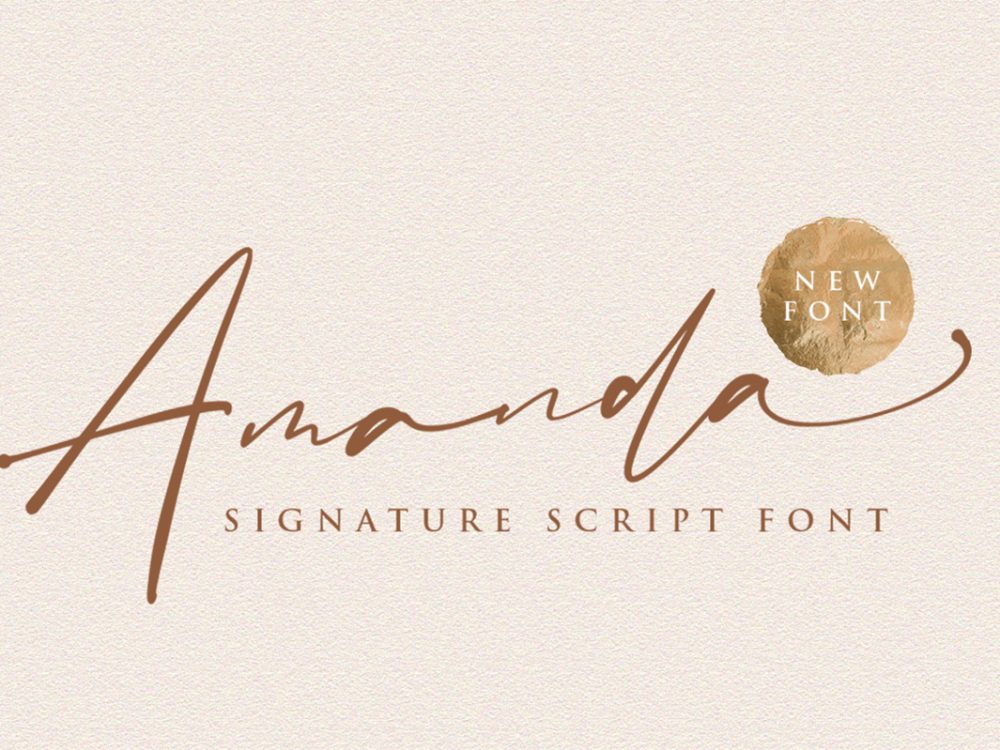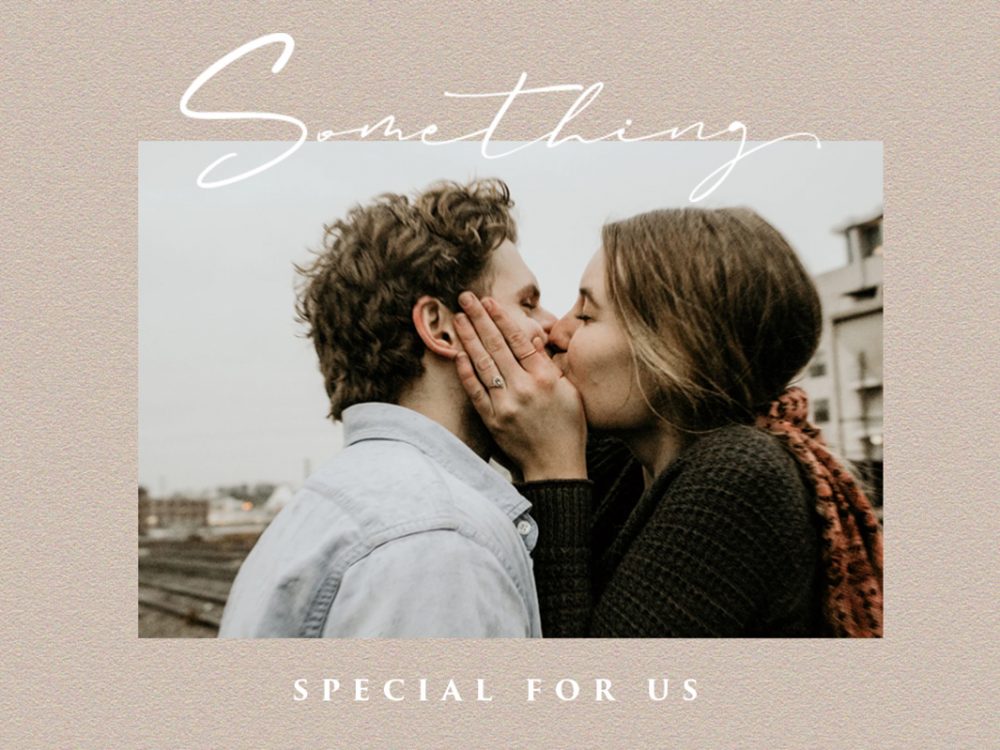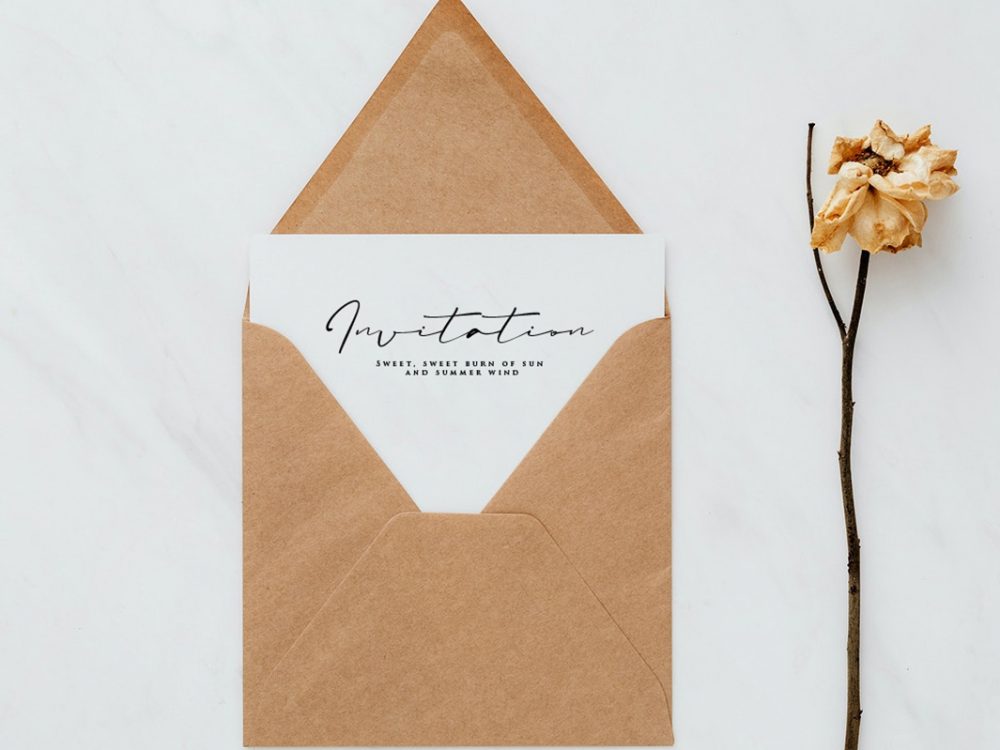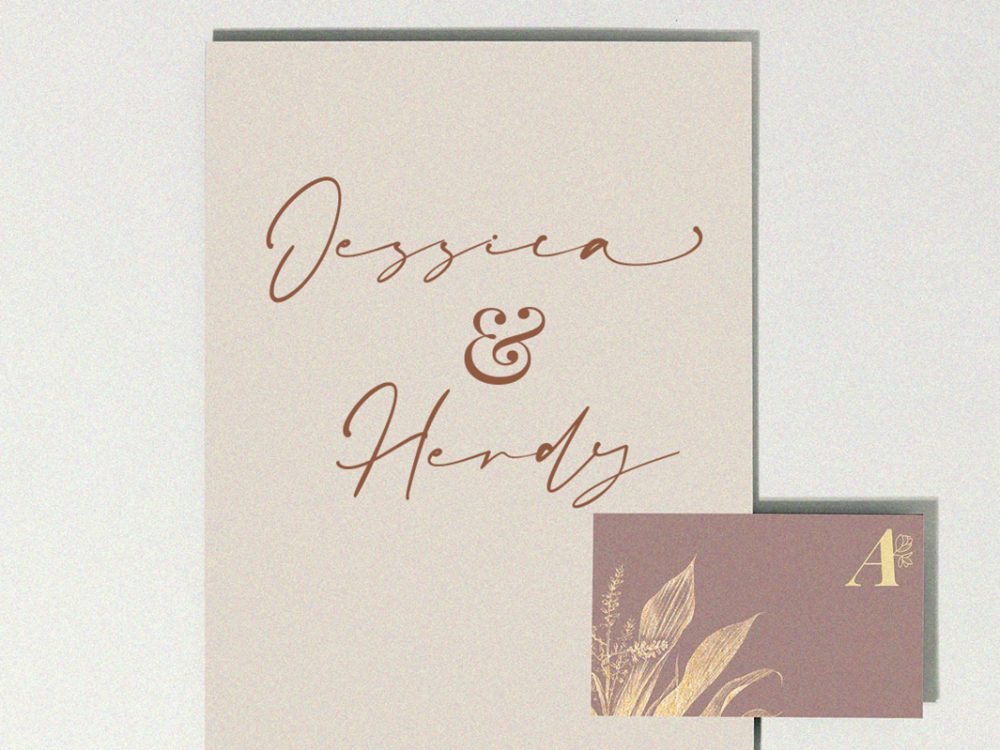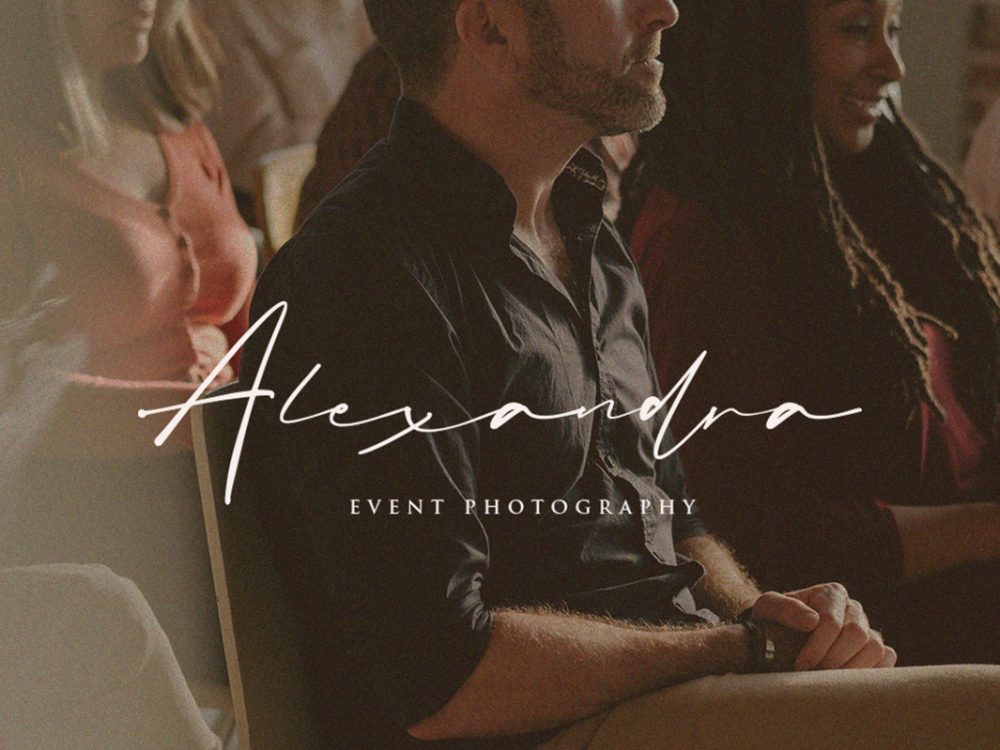
Amanda Free Font
Amanda Free Font is an interesting handwritten font that features an elegant outline and modern style. This font is very suitable for your various design projects that require a quality script font. You can use this font to create memorable romantic posters, wedding invitations, greeting cards, branding, flyers, t-shirt and pillow prints, and more. Improve the quality and increase the popularity of your design projects by using this font. If you like it don’t forget to check out the full version.